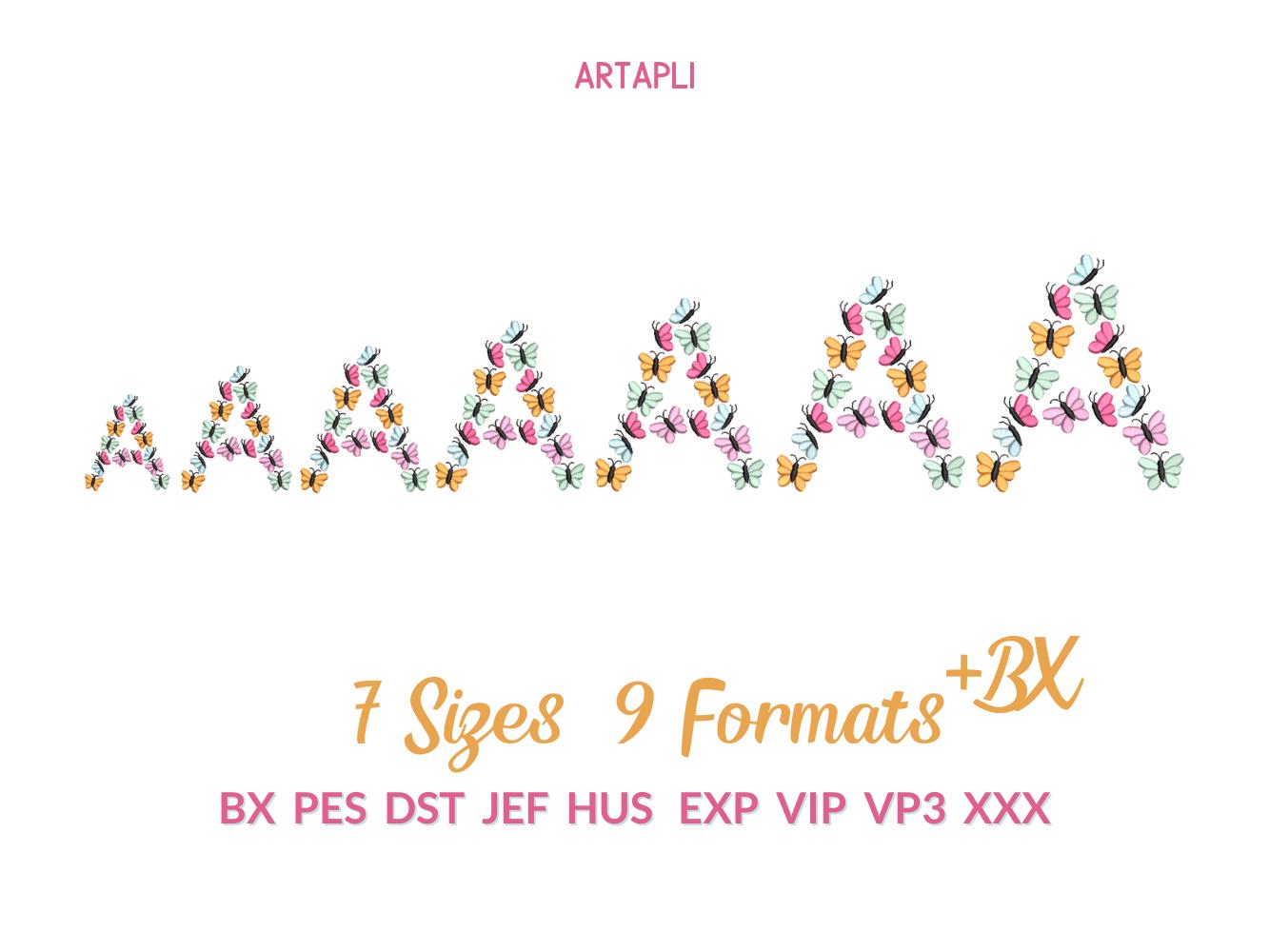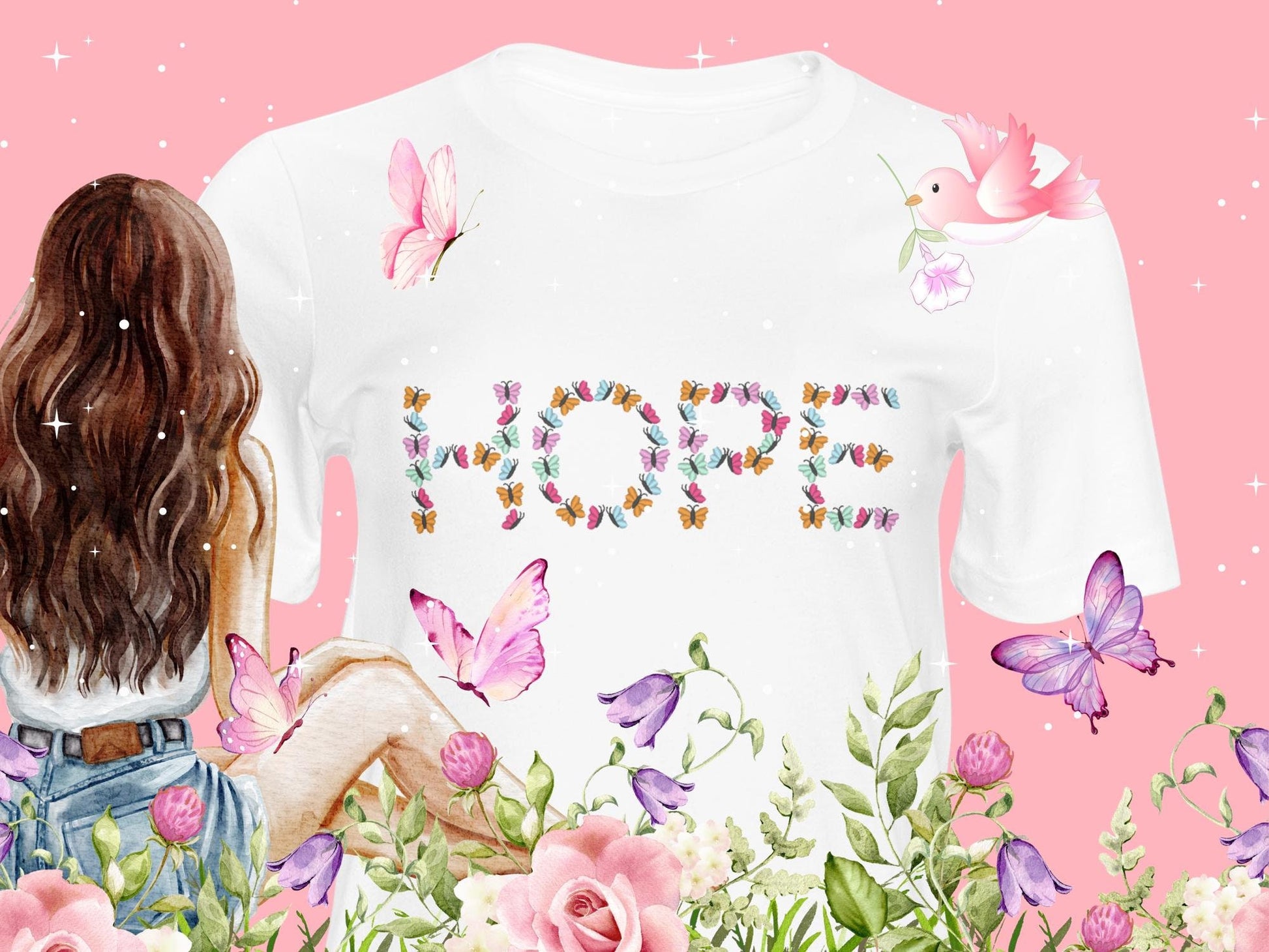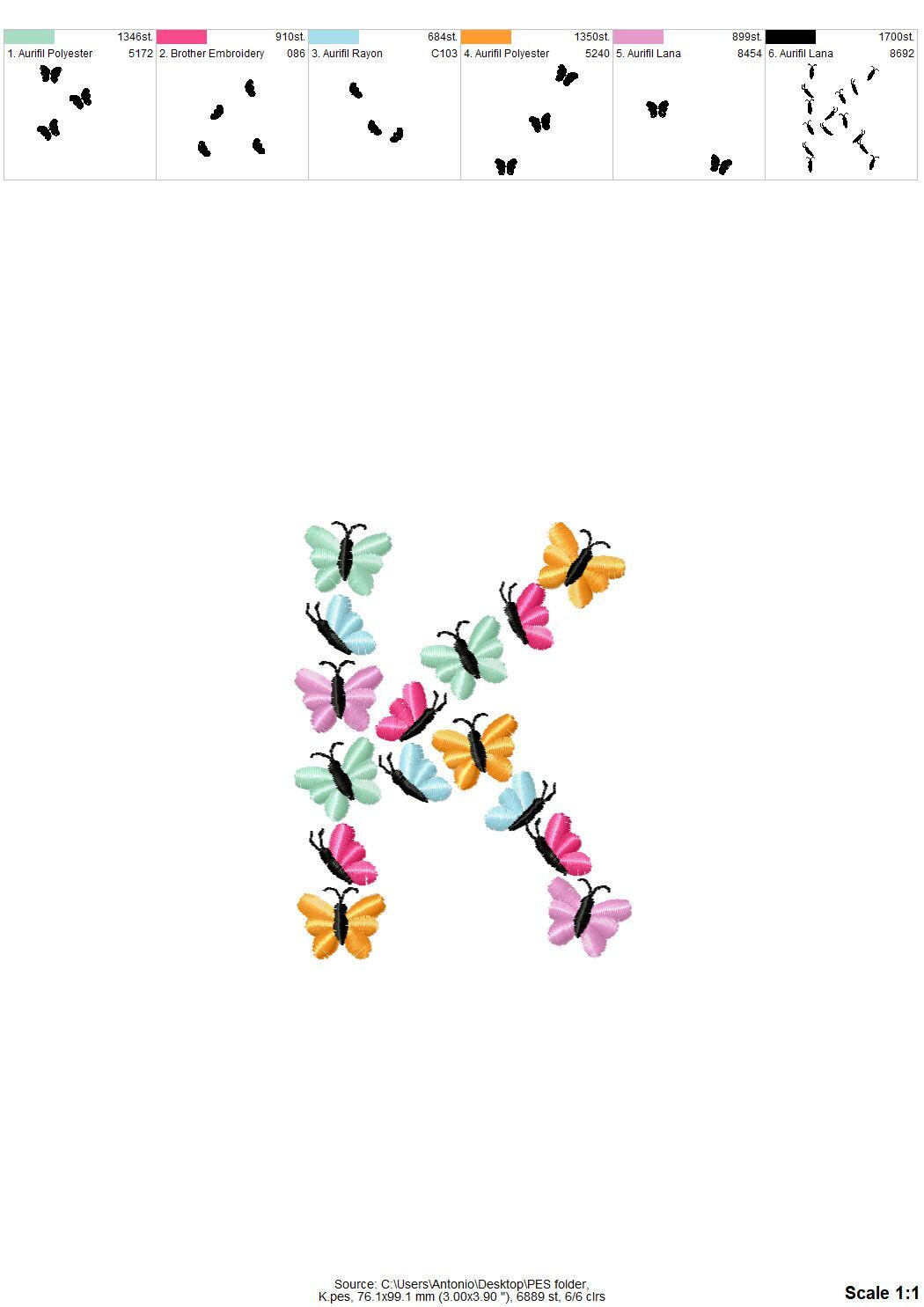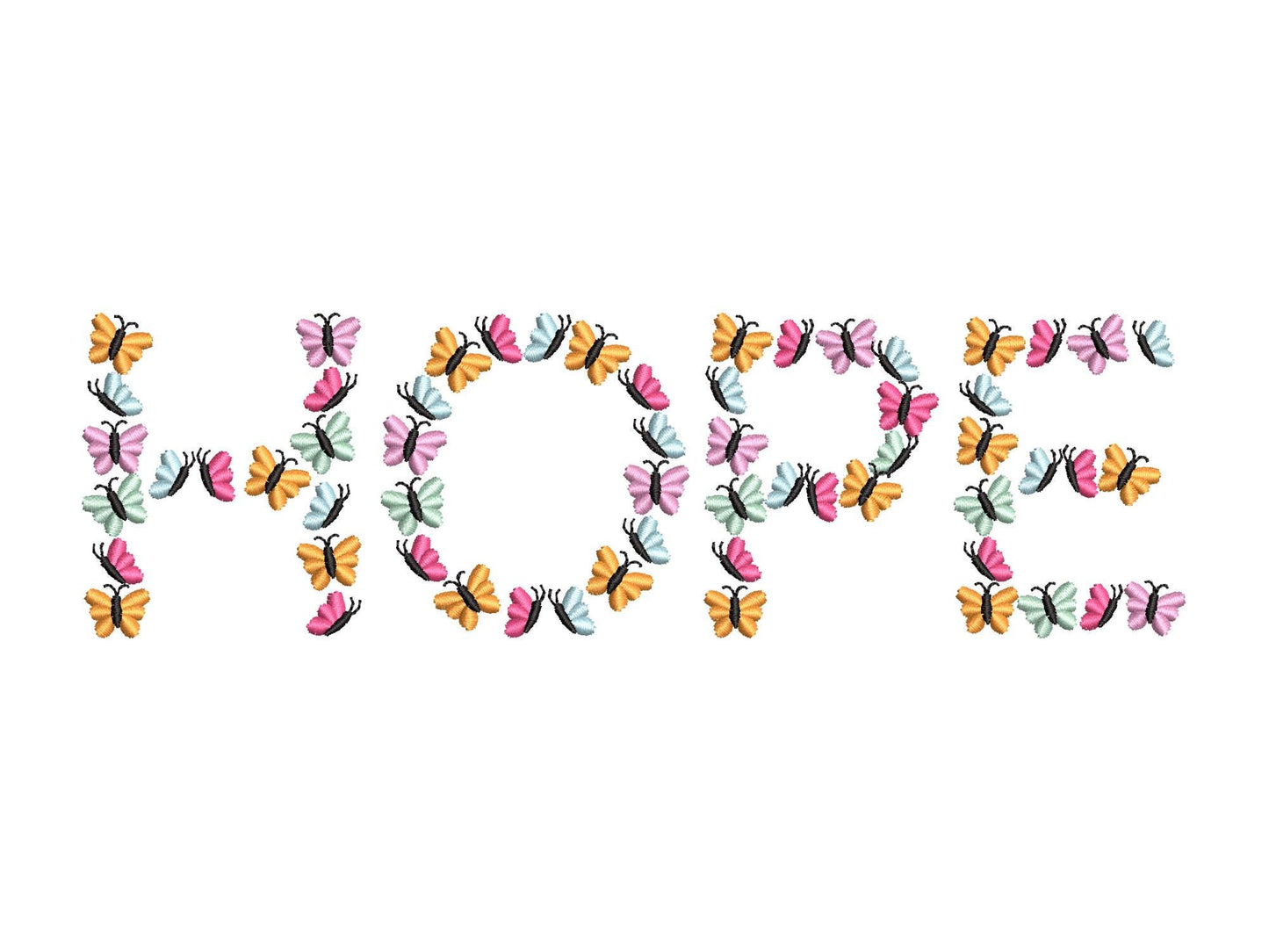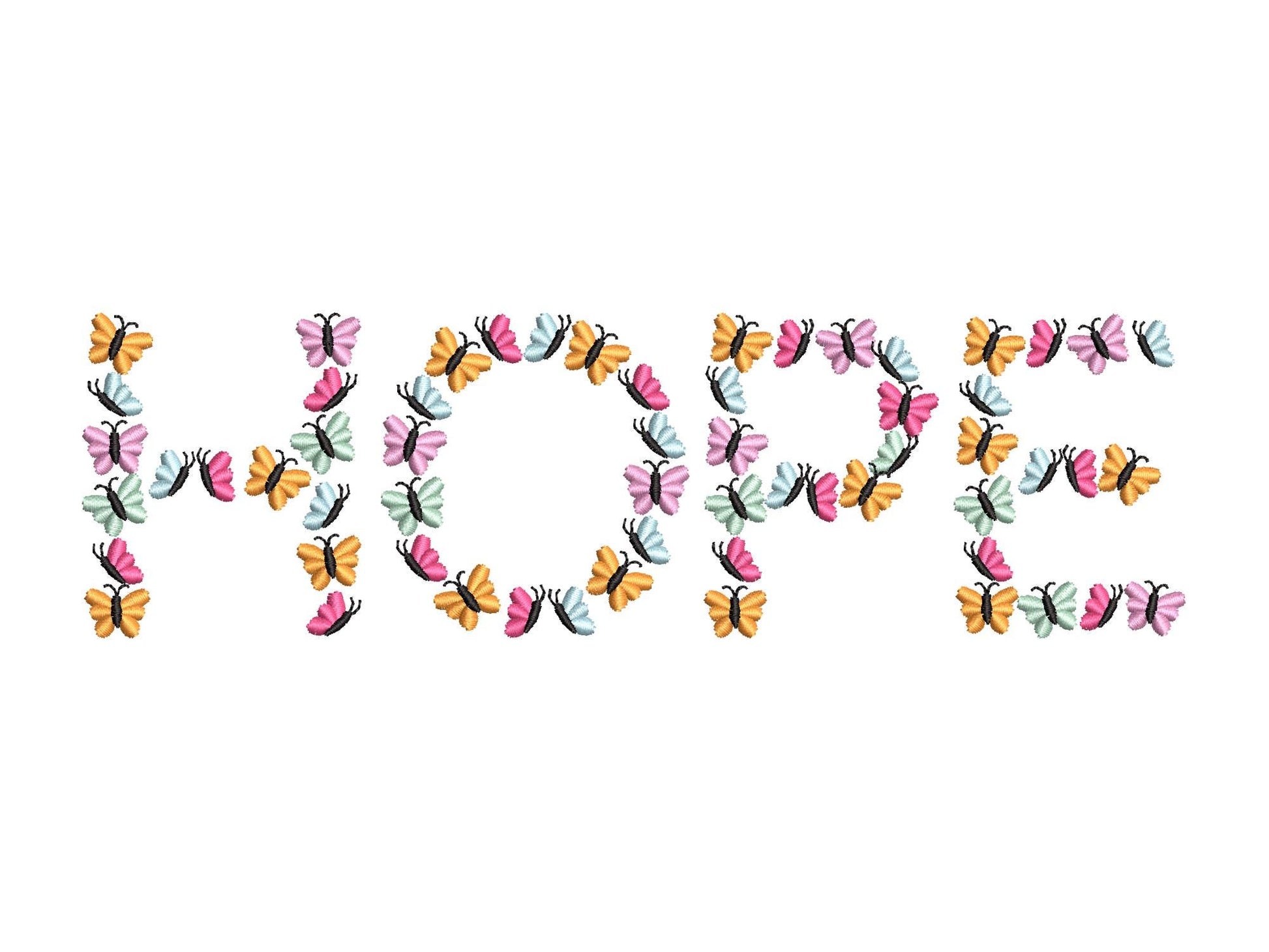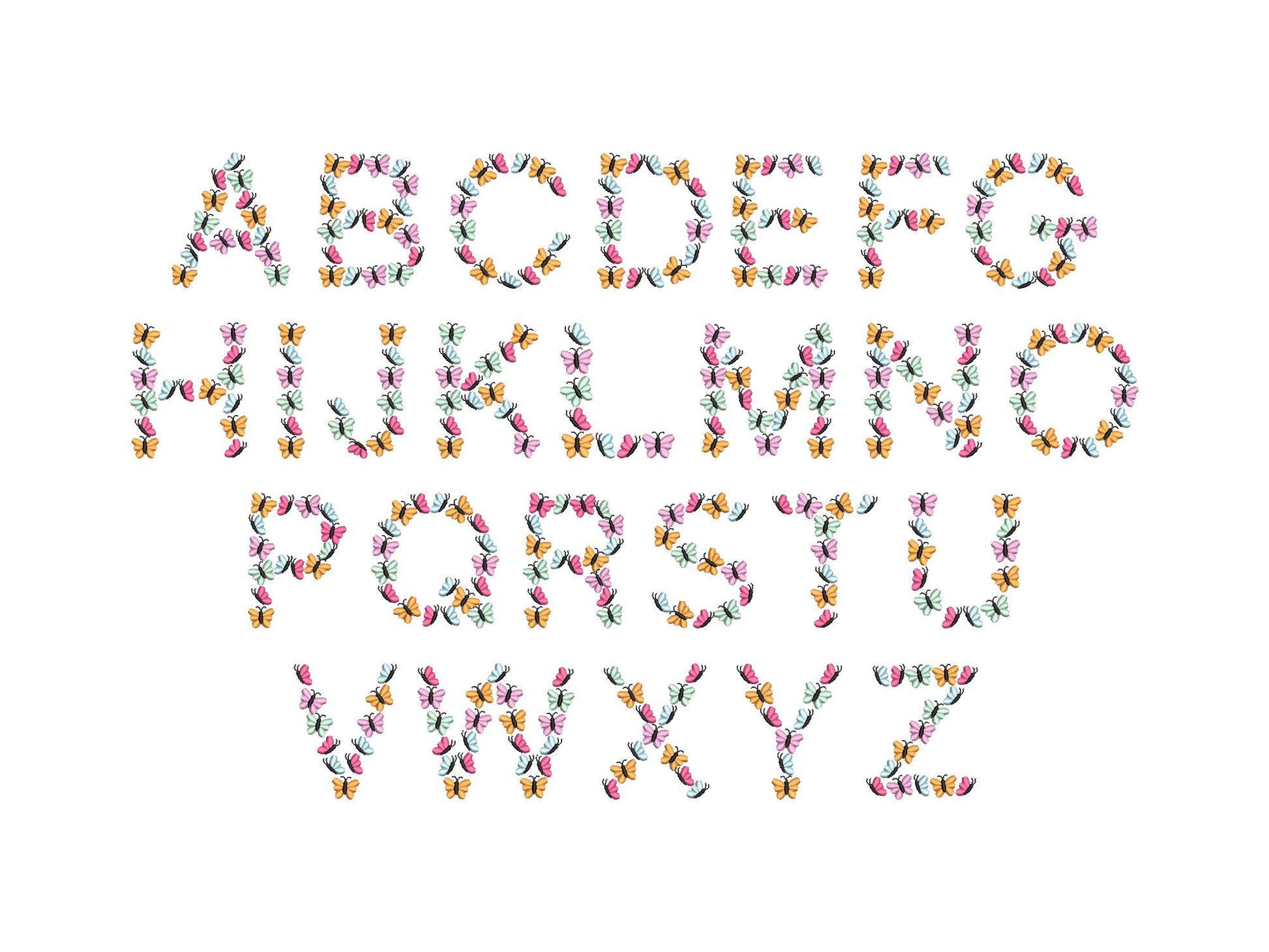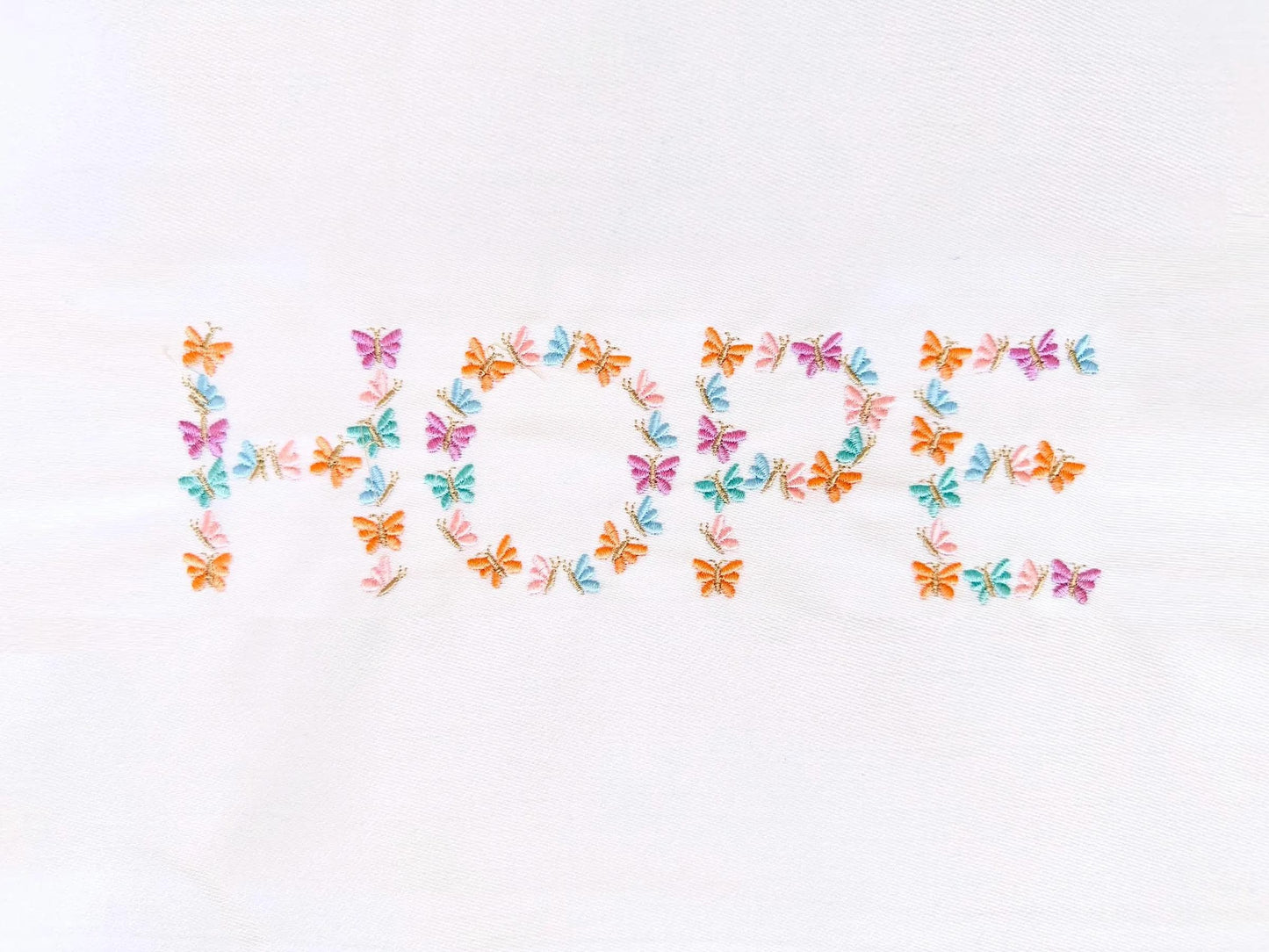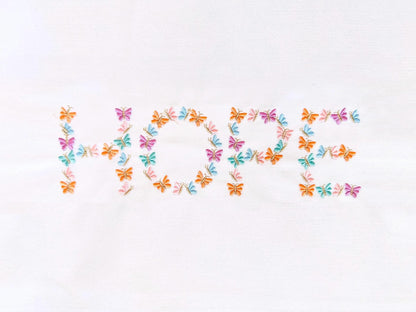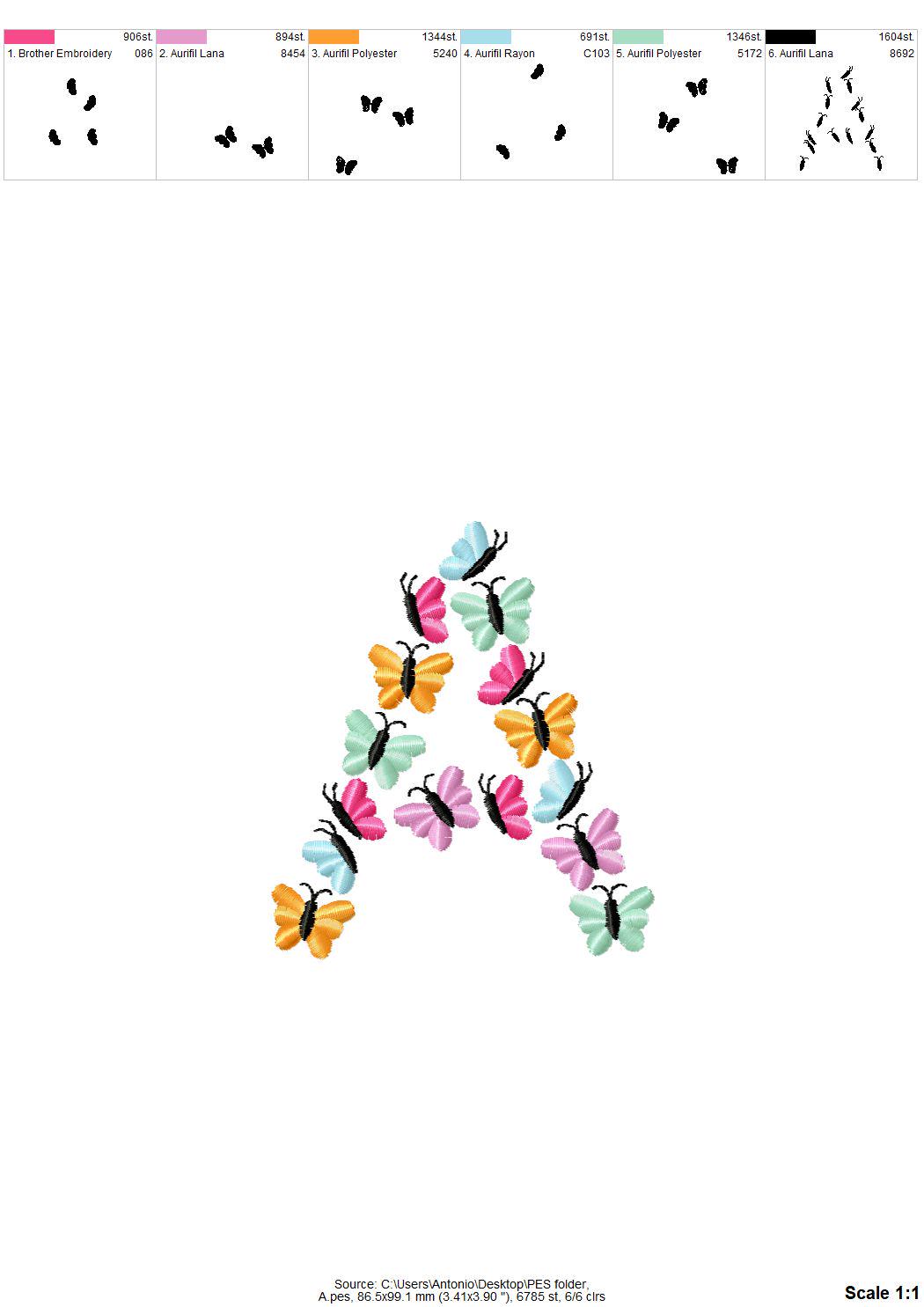
Or click to open the linkA summer floral font with tiny butterflies. Pretty for girls' monograms, pillows, tote bags and spring gifts.
Uppercase letters A to Z. Seven sizes: 2.5, 3.3, 4, 4.5, 5, 5.7 and 6.3 inches.